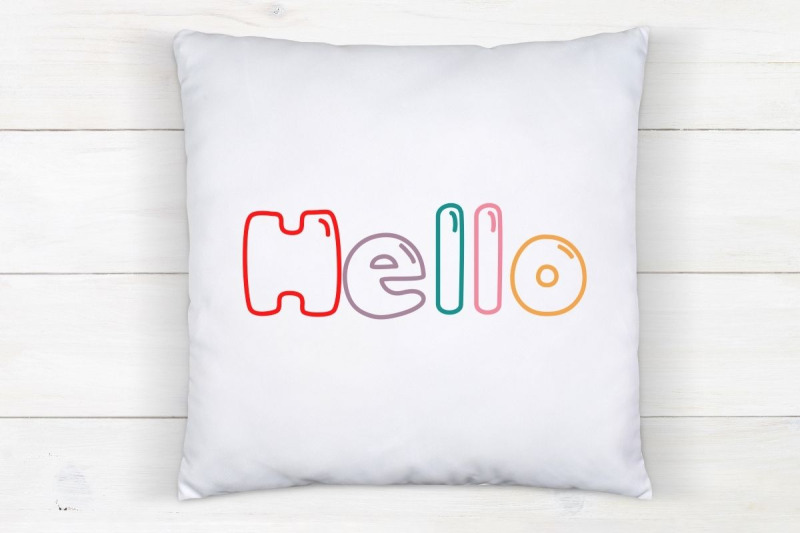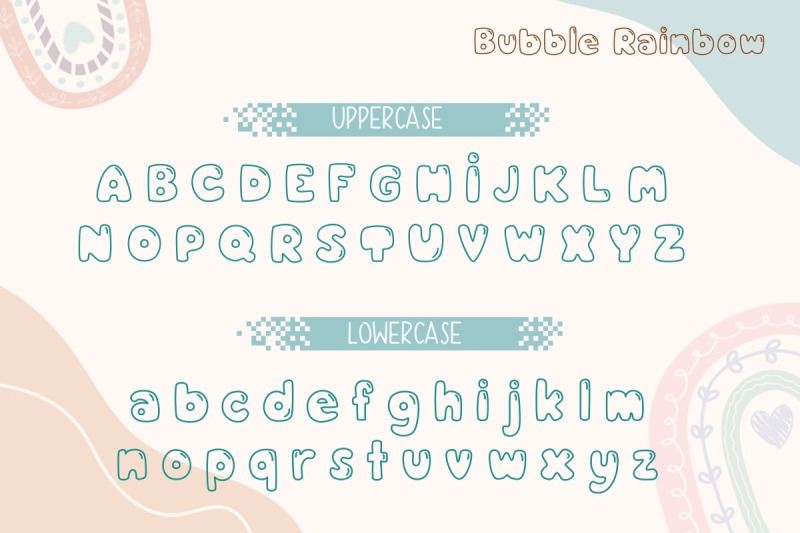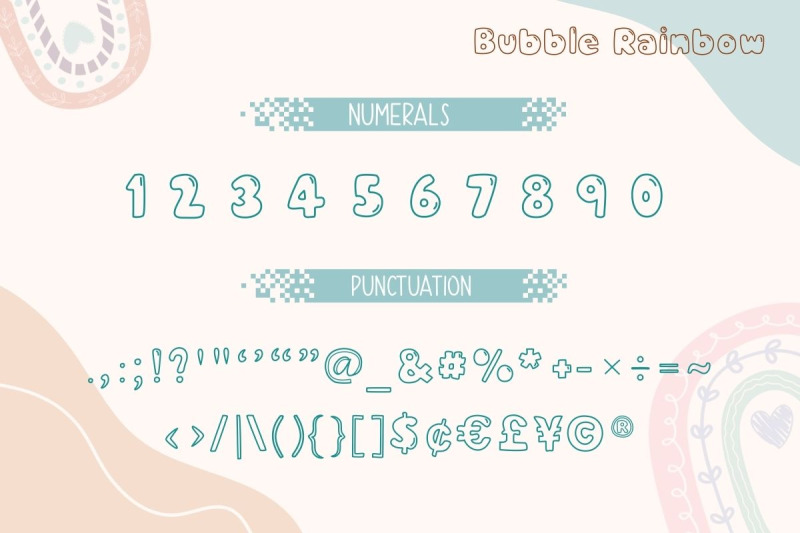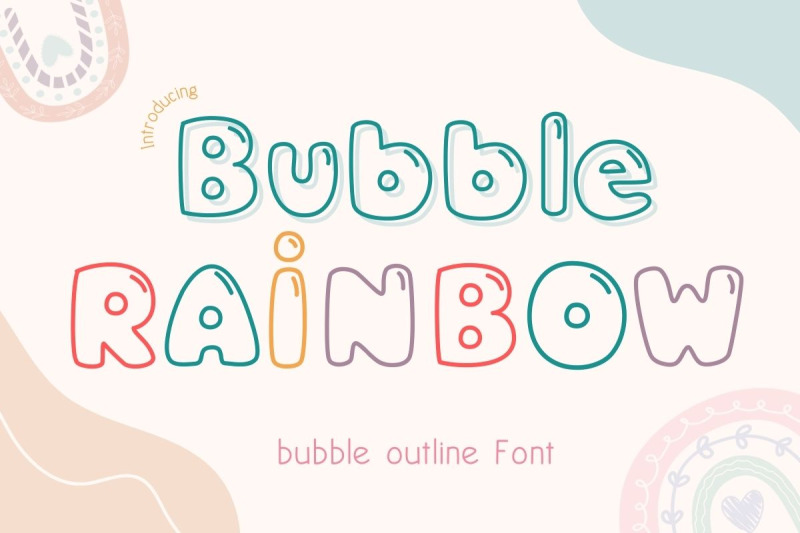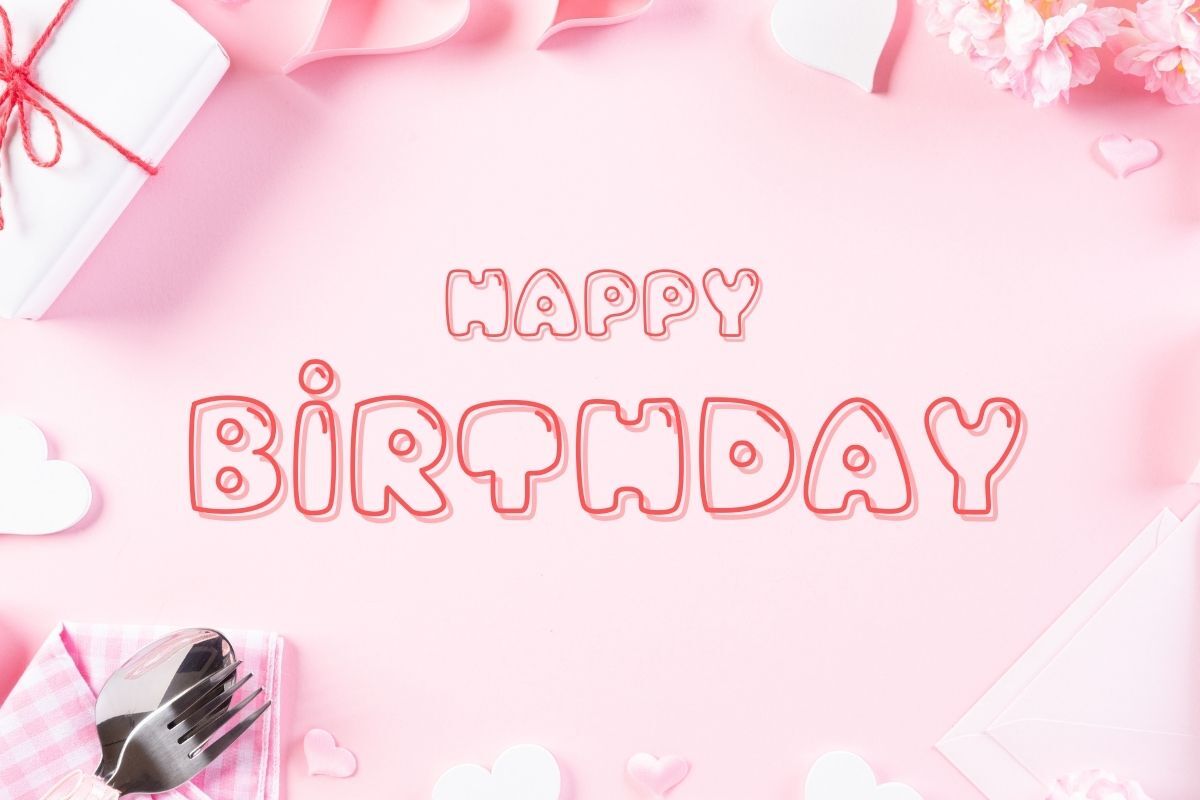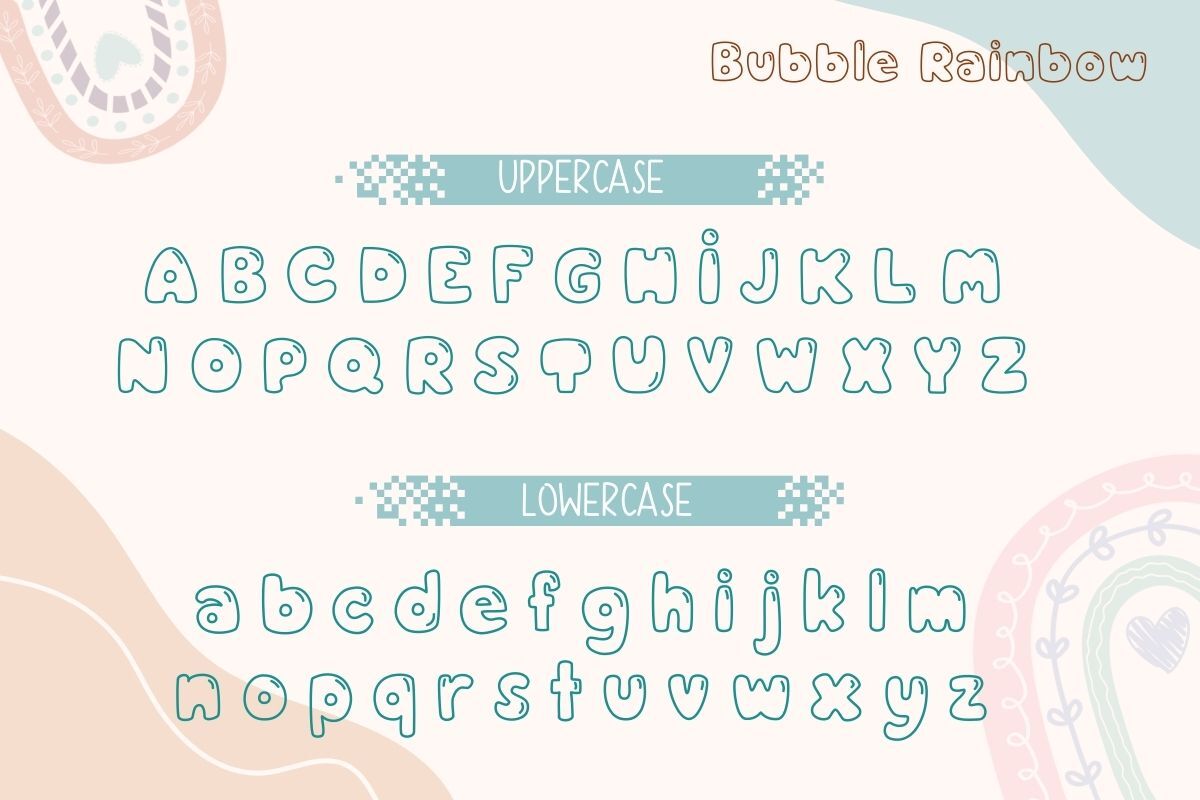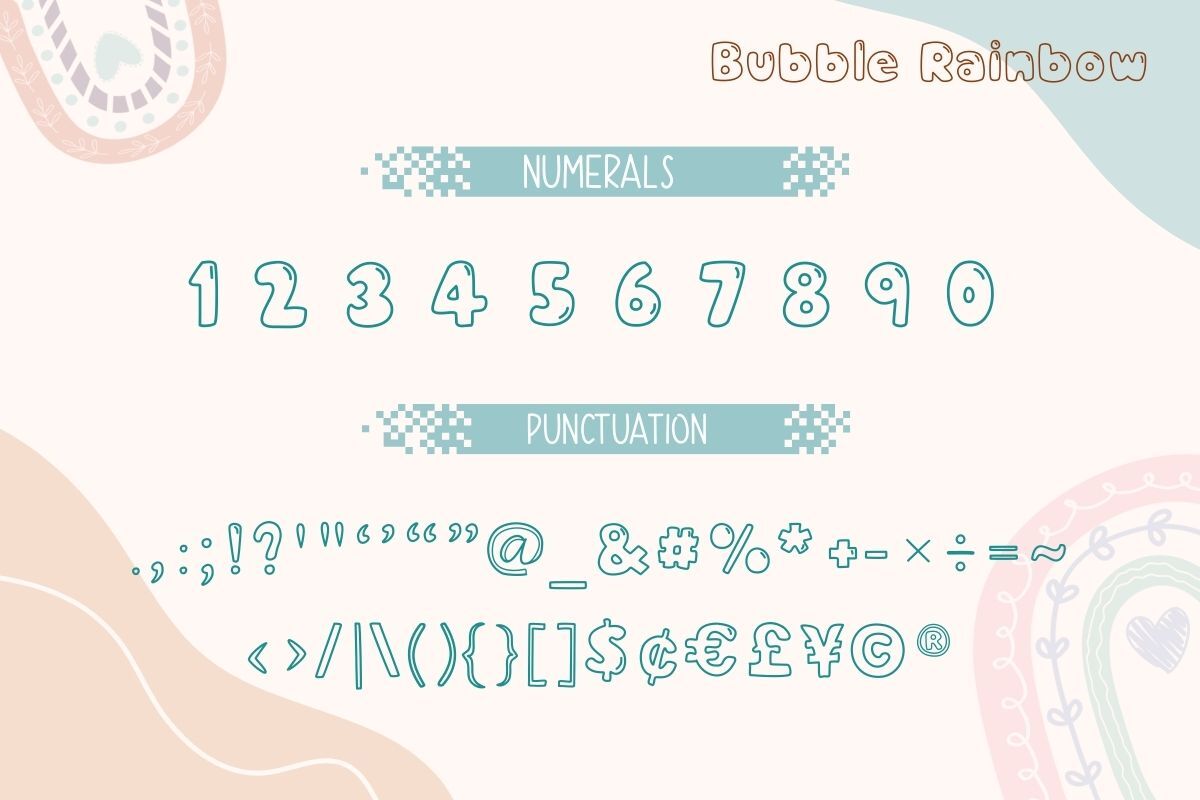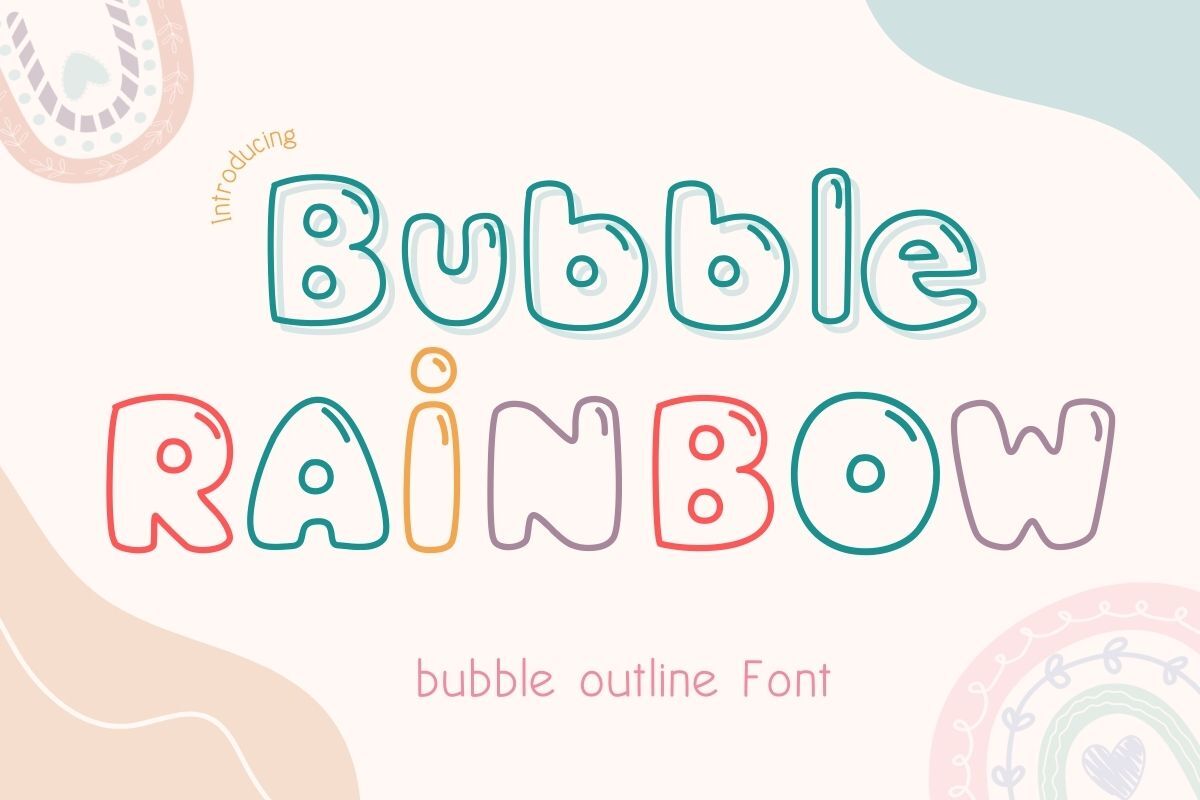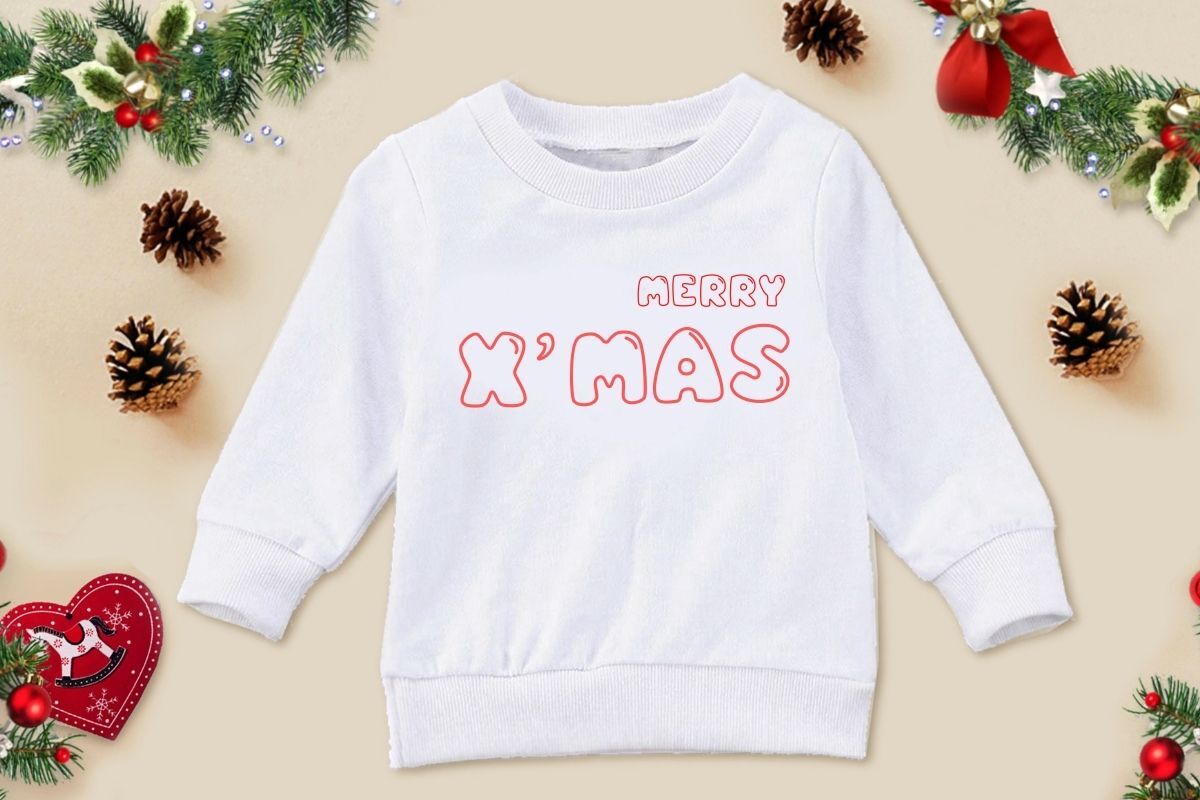
Bubble Rainbow - Outline Font
Bubble Rainbow is a cute and playful bubble outline font designed to bring color and fun to your projects. With its rounded bubbly style and rainbow-inspired vibe, it’s perfect for kids’ crafts, party invitations, t-shirts, stickers, and holiday decorations. This font includes uppercase & lowercase, numbers, punctuation, and multilingual support, making it versatile for both print and digital projects. Ideal for Cricut and Silhouette users, Bubble Rainbow is a must-have for crafters who love fun, happy designs.